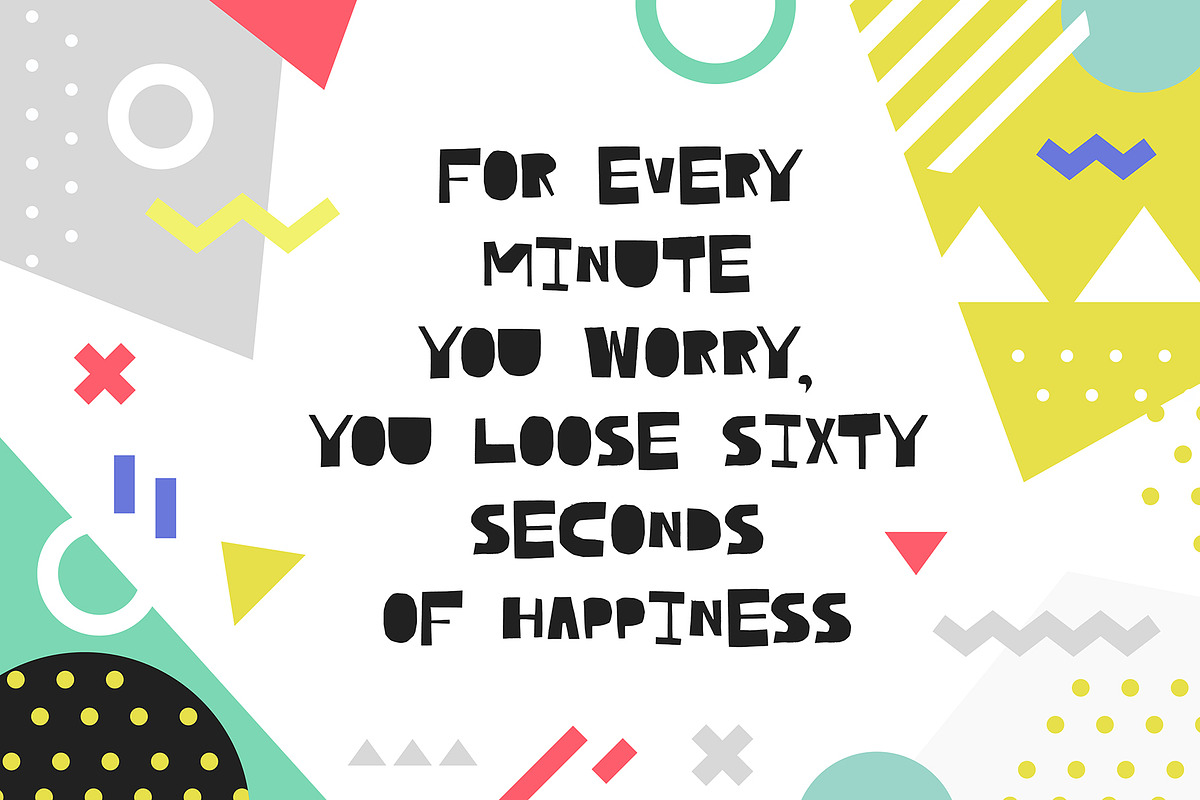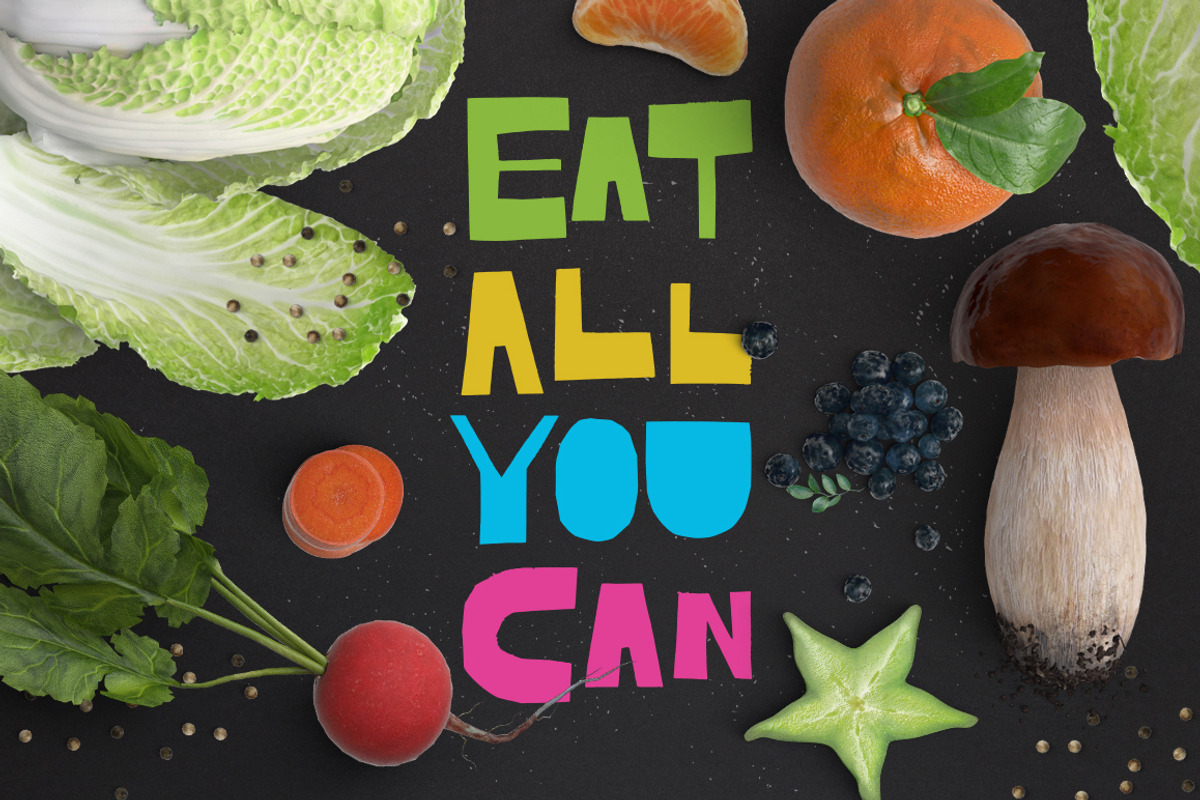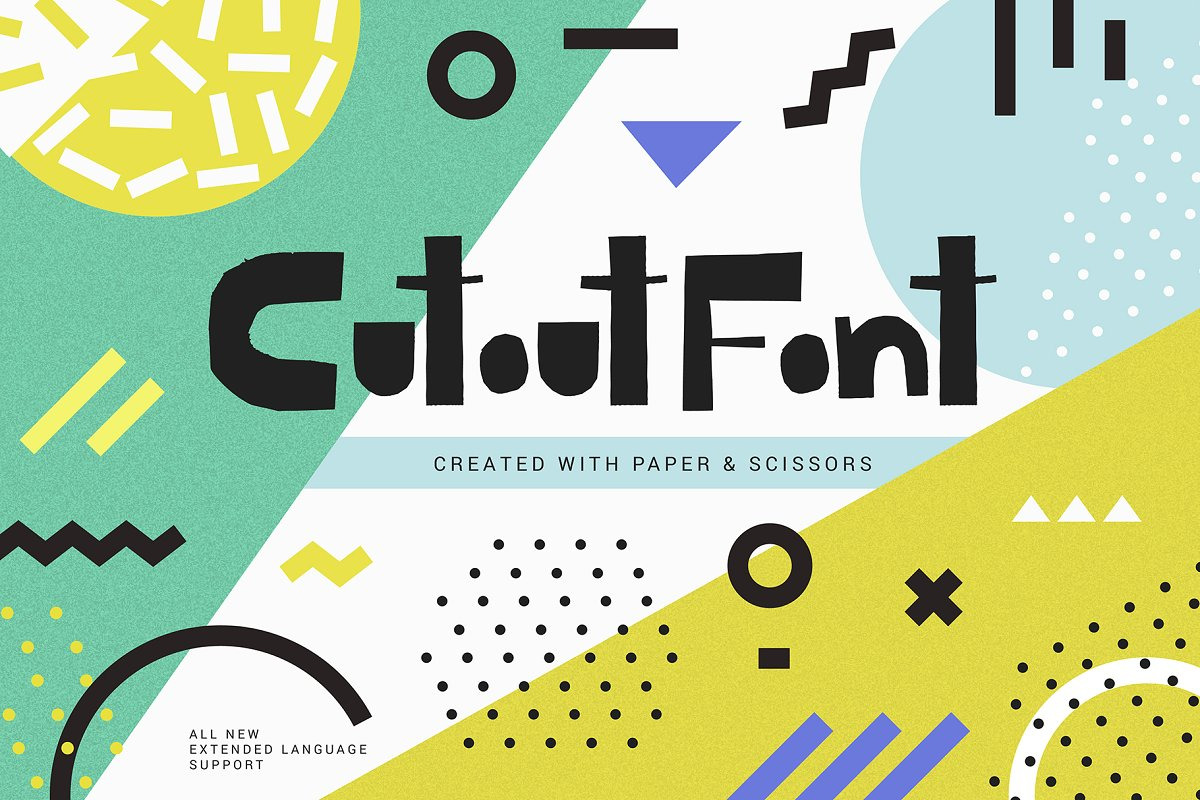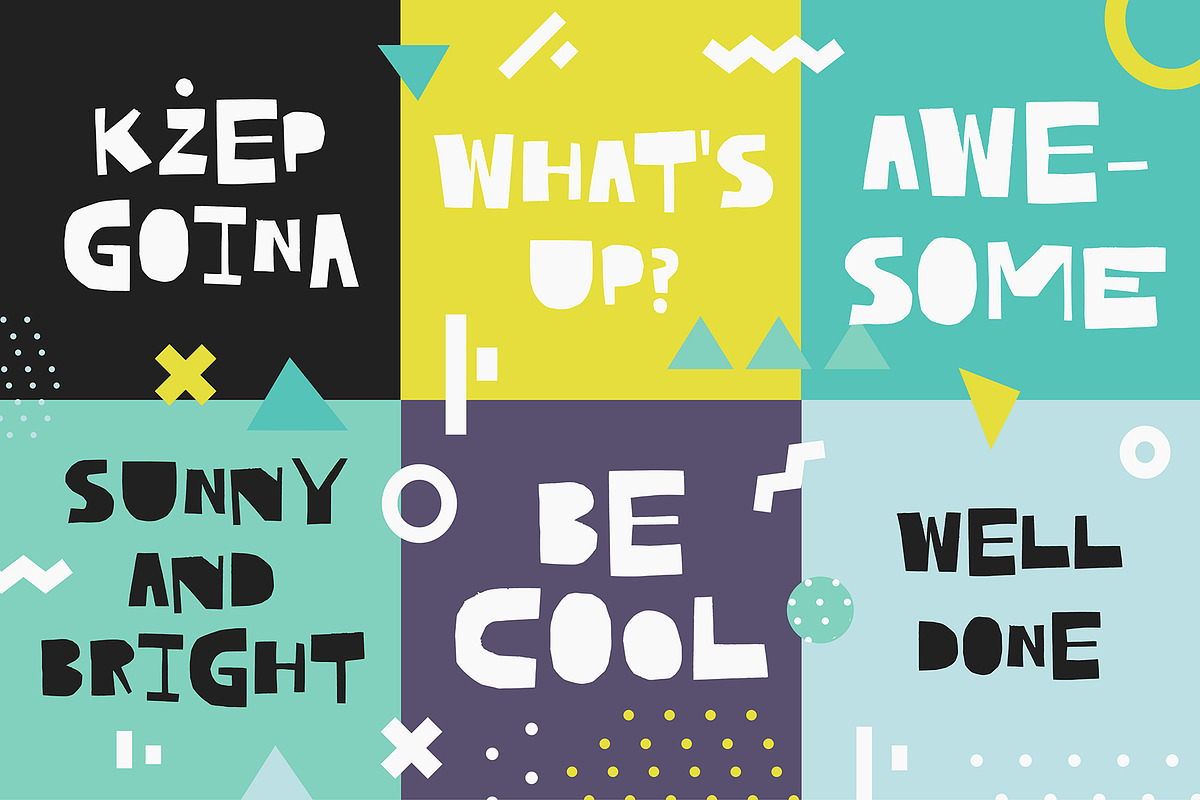
Cutout - bold uppercase font
I'm super-pleased to introduce to you all new updated Cutout Font! Now it includes not only uppercase letters, but lowercase (with alternative set & ligatures) and extended language support, including Cyrillic!
All symbols of the font were cut out of paper and then carefully digitised.
Cutout is a bold font with organic edges and it will look great on posters, book covers, apparel design and anywhere where you need to draw attention to the words. You will get both TTF and OTF versions of the font.
Cutout is a perfect font for:
- Posters & quotes
- Apparel design
- Branding and advertising
- Book covers and magazine pieces
As a bonus you will get additional Cutout Textures font to help you add awesome textures in a quick & easy manner. You will get those texture in vector format too in case it's easier for you to use them this way.